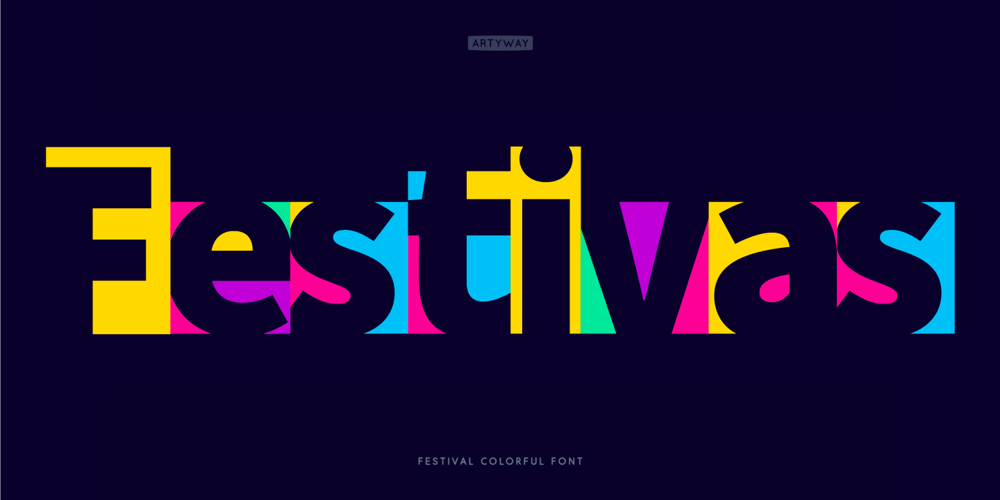
Festivas Font Family was designed by Yehor Lisnyi and published by Artyway. Festivas contains 1 styles and family package options. Festiva font is Geometric Fun Display Font with Colorful Shapes for Bold Party Vibes”Festival” is a lively, geometric font that mixes shaped negative space of letters, bold modern colors and Mexican or Indian Festive vibes.Perfect for creating vibrant, energetic designs for parties, events, and entertainment branding, bright geometric logo, Mexican or Indian fest headline, birthday greeting card, school project design